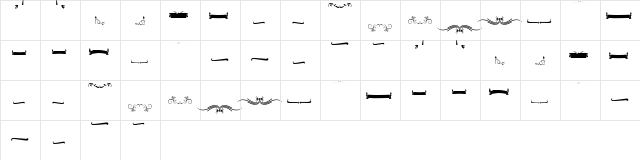
Bunda Swash Regular
Design Context for Bunda Swash Typeface
Bunda Swash flows with the natural rhythm of handwritten lettering, making it ideal for designs that call for warmth and personal expression.
Font Pairing: Combine Bunda Swash with a simple geometric sans for maximum contrast — the tension between flowing curves and clean structure is a classic typographic pairing.
Pro Tip: Use Bunda Swash for short runs of text — names, titles, or taglines. Extended body copy in script faces tires the eye quickly.